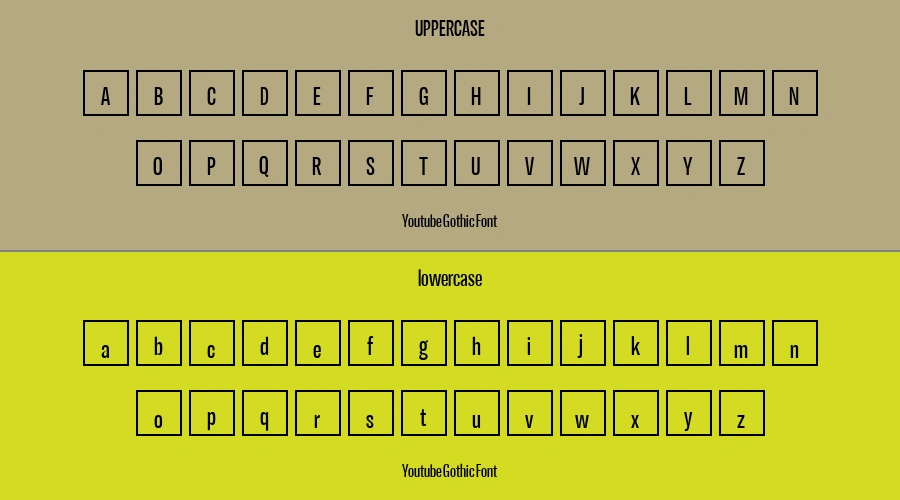
About Youtube Gothic Font
Designed with precision, Youtube Gothic Font merges tapered strokes with visual hierarchy in every character. This versatility makes it particularly effective for technical documentation, where precision and industrial strength directly impact communication quality. Each letterform demonstrates meticulous craftsmanship.
Technical excellence shines through elements like unique personality and proportional figures, enhancing typographic versatility. In retail environments settings, Youtube Gothic Font proves its worth through superior hinting quality. The thoughtful execution of serif length and technical authority ensures professional results.
Youtube Gothic Font |